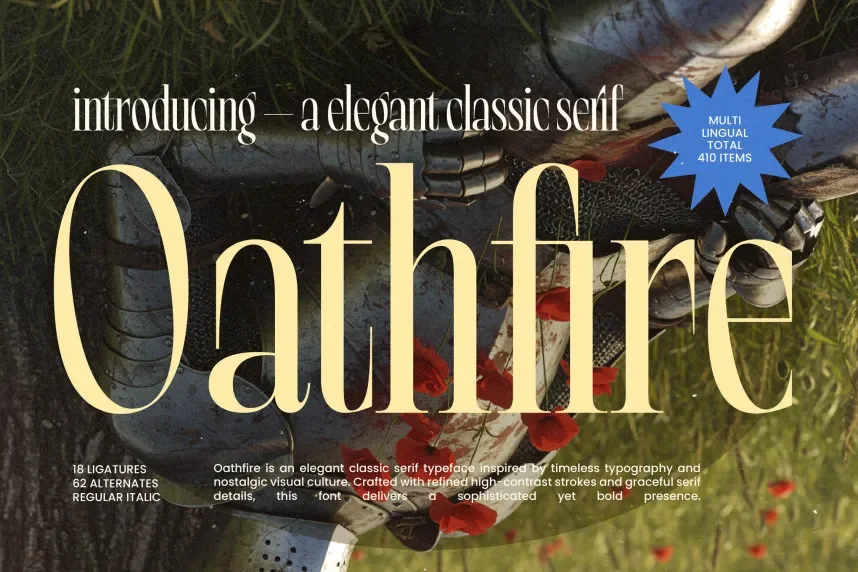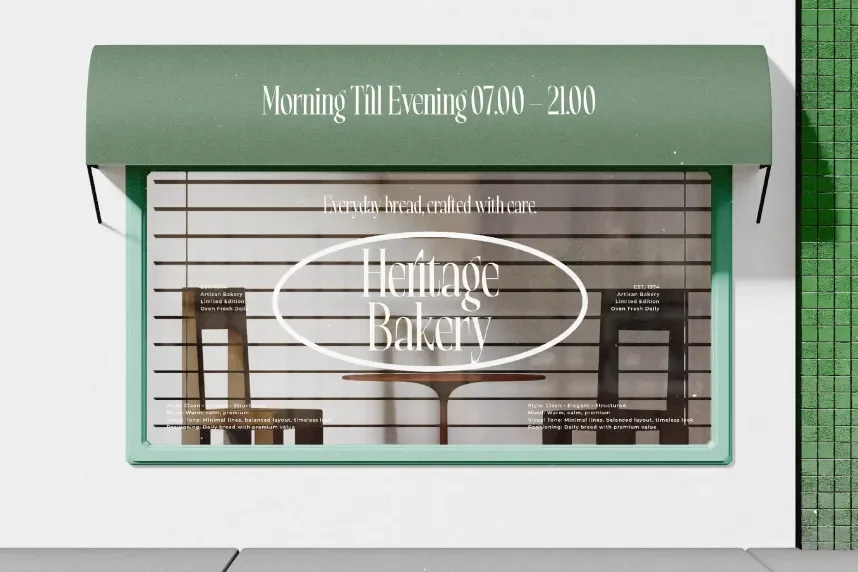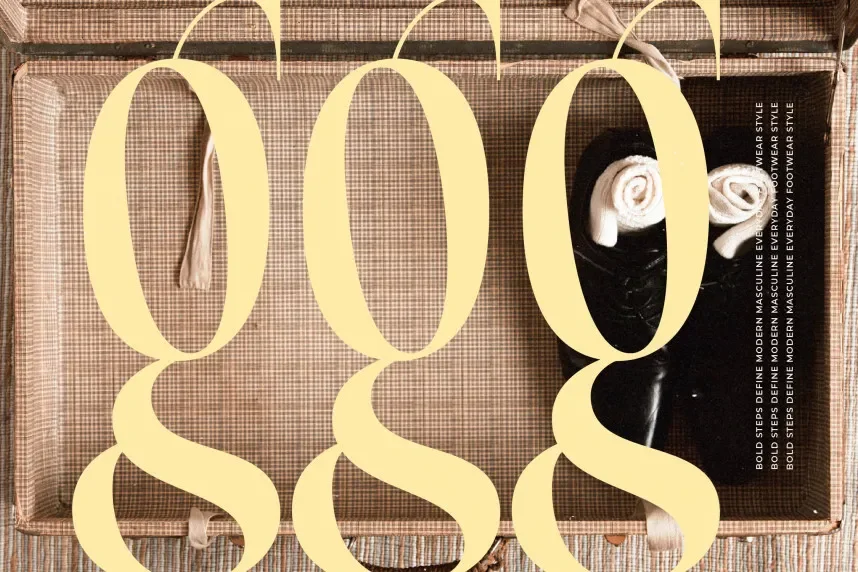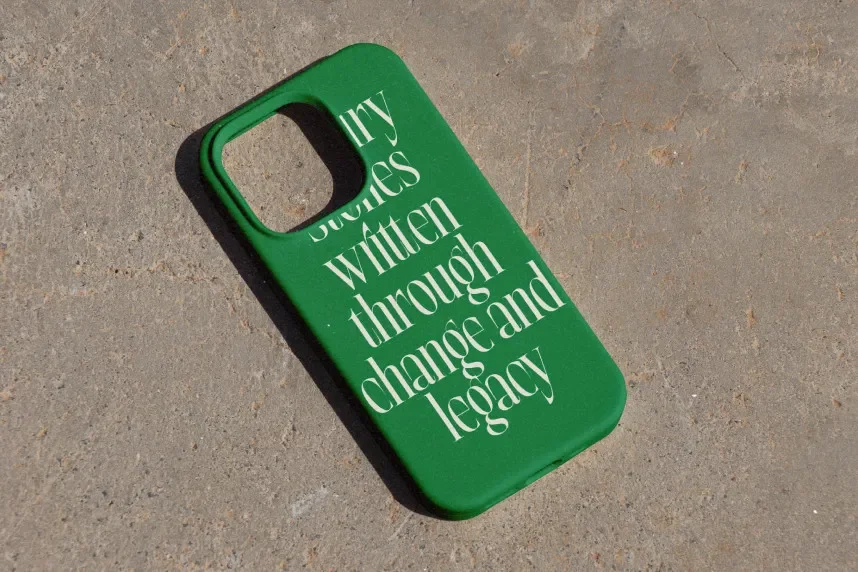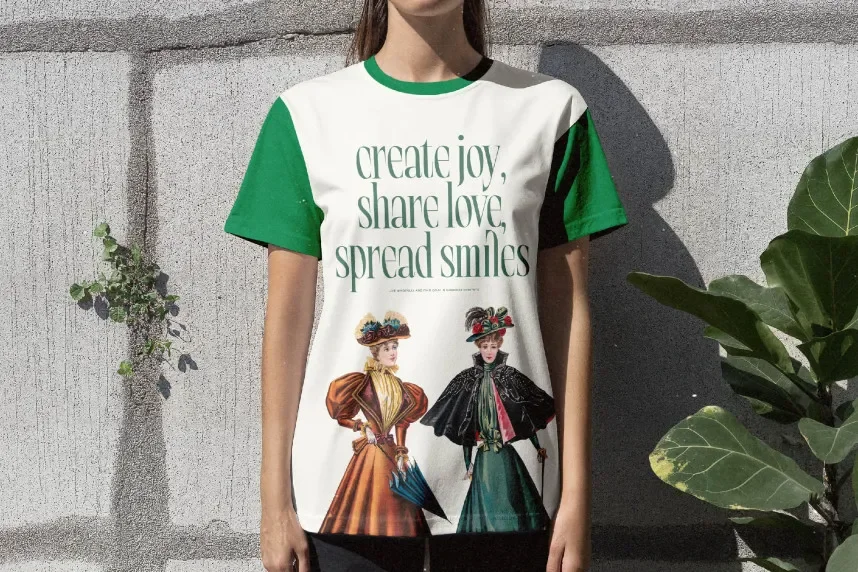
Oathfire Font is a dynamic display typeface with sharp, angular lines that create a sense of intensity and strength. Its bold design makes it ideal for branding projects, posters, and logo designs that require a powerful visual impact.